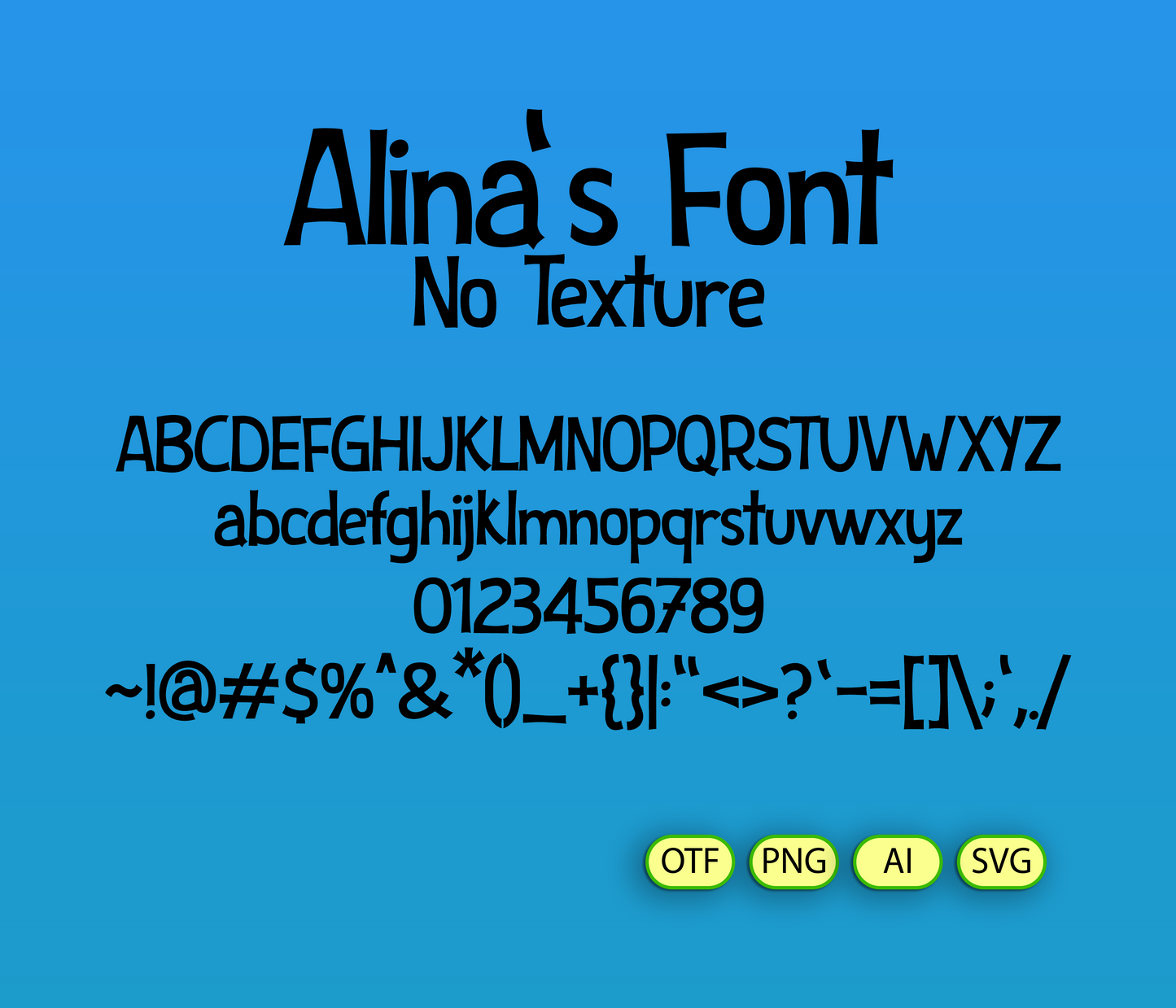
Backyard Pals Comic Font
Step into the charming world of childhood wisdom with our Backyard Pals font, capturing the heartwarming spirit of beloved newspaper comics featuring a philosophical beagle and his neighborhood friends. This specially crafted typeface brings to life the gentle humor and timeless charm of Sunday morning comics, perfect for designers, content creators, and anyone looking to add a touch of nostalgic whimsy to their projects.
Our Backyard Pals font features friendly, rounded characters that reflect the warmth and simplicity of classic comic strips. Ideal for:
- Children's Content: Create engaging materials for story books, educational resources, and playful learning materials that capture that classic comic strip charm
- Seasonal Celebrations: Design heartwarming holiday cards, festive decorations, and special occasion invitations with that beloved comic strip style
- Nostalgic Merchandise: Develop charming T-shirts, mugs, and accessories that remind us of cherished Sunday morning comics
- Digital Media: Transform your blogs, social media posts, and websites with headers and graphics that bring back memories of newspaper comic joy
- Personal Projects: Perfect for scrapbooking, greeting cards, and DIY crafts that need that touch of classic comic strip nostalgia
Our font celebrates the spirit of childhood friendship, imagination, and everyday wisdom that made those comic strips so special. Whether you're creating materials for children's events, designing nostalgic merchandise, or adding playful charm to personal projects, this font delivers the perfect blend of humor and heart.